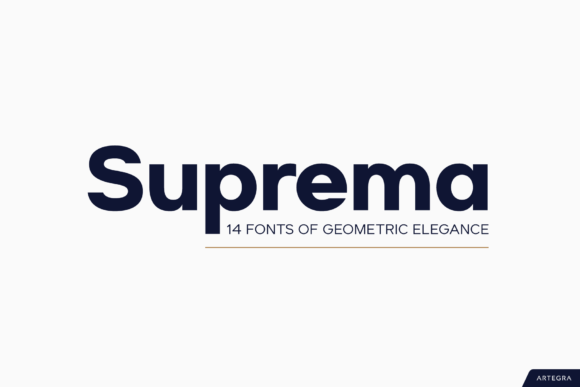
Introducing Suprema Font, the epitome of modernity and elegance in the world of typography. Created by Artegra, this sans serif family will take your designs to new heights with its supreme geometric perfection.
With its 7 weights and matching true italics, Suprema Font offers unparalleled versatility and flexibility for all your creative endeavors. Whether it's a sleek logo, a captivating headline, or a stunning website, this font will elevate your designs to a whole new level.
But what truly sets Suprema Font apart is its extensive range of OpenType features. Experience the power of tabular lining, proportional oldstyle, tabular oldstyle, ligatures, superscript, subscript, fractions, and language localizations. With Suprema Font, you have the tools to craft typography that is not only visually striking but also functional and accessible.
Looking to add a touch of sophistication to your designs? Suprema Font has got you covered. Its clean and minimalist aesthetic exudes an air of modernity and professionalism, making it perfect for corporate branding, elegant invitations, and high-end fashion editorials.
But Suprema Font is not just about style, it's about creating a seamless user experience. With its language localizations for Polish, Dutch, Romanian, Moldovian, and Catalan, you can effortlessly cater to a diverse audience and ensure your message resonates with every viewer.
Unlock your design potential with Suprema Font and witness the transformative power it brings to your creative projects. Its captivating curves, impeccable letterforms, and precise attention to detail will captivate your audience and leave a lasting impression.